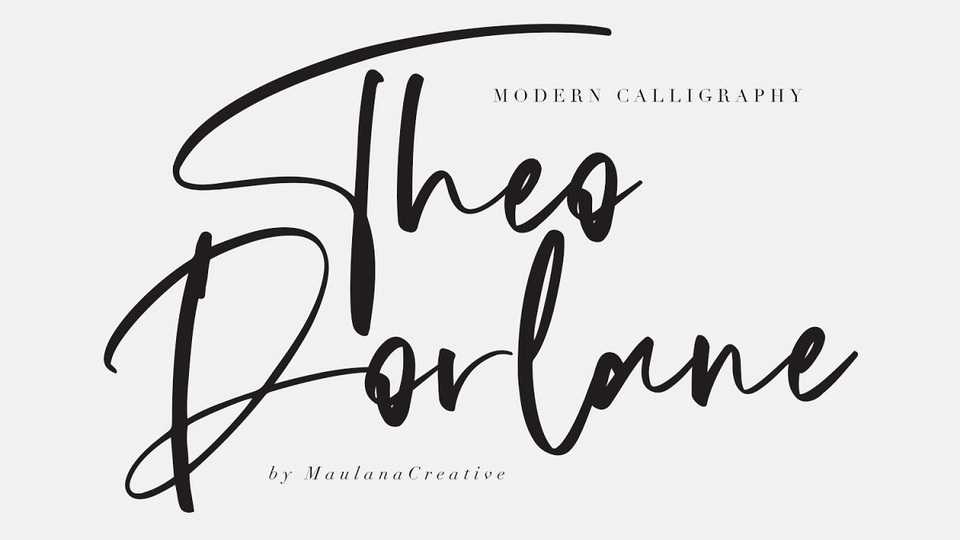
Download Theodorlane font, a typeface to give your designs an authentic handcrafted feel. Theodorlane is perfectly suited to signature logo, typography quotes, magazine or book cover, website header, clothing, branding, packaging design and more.
Designer: Maulana Creative